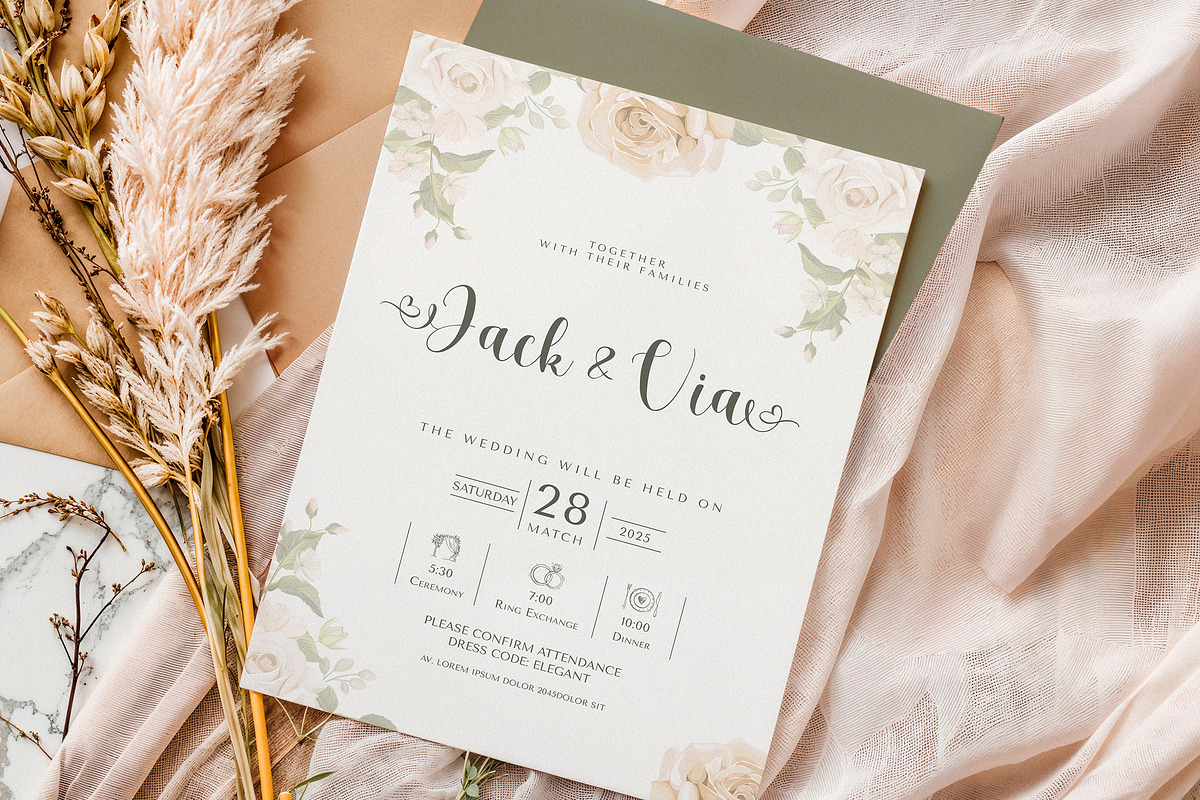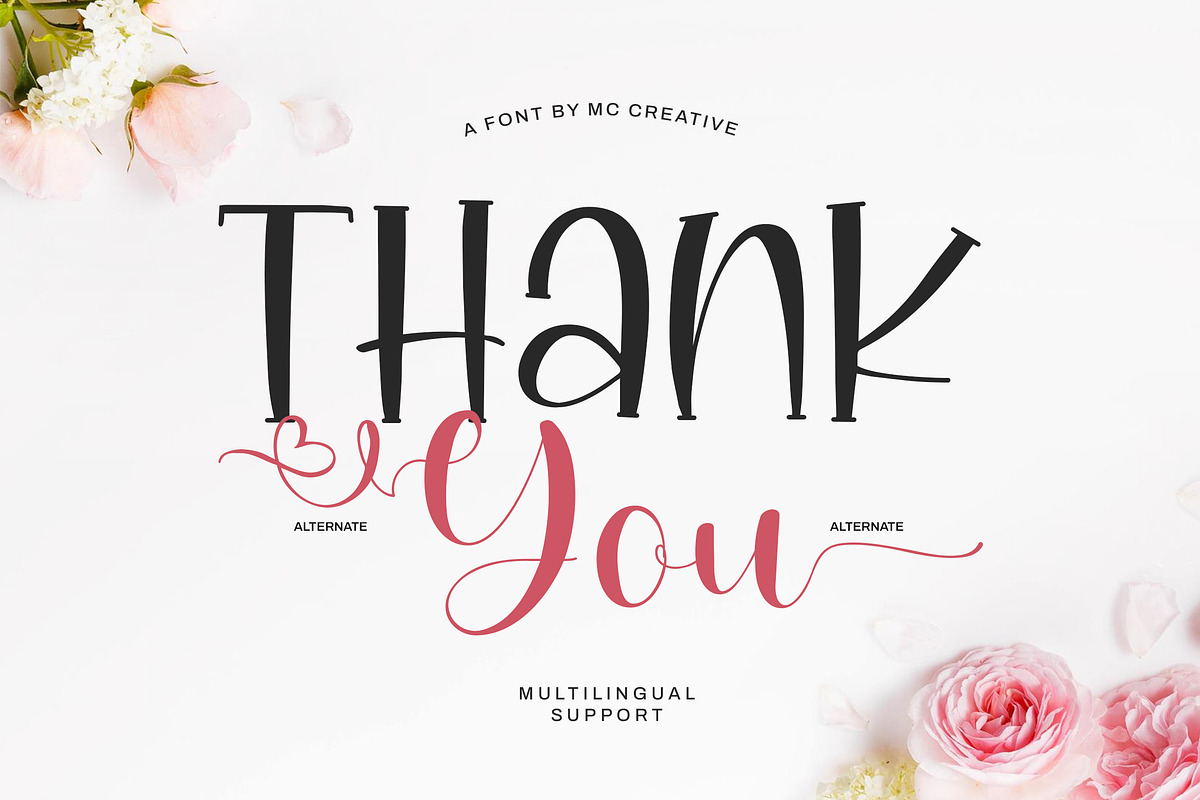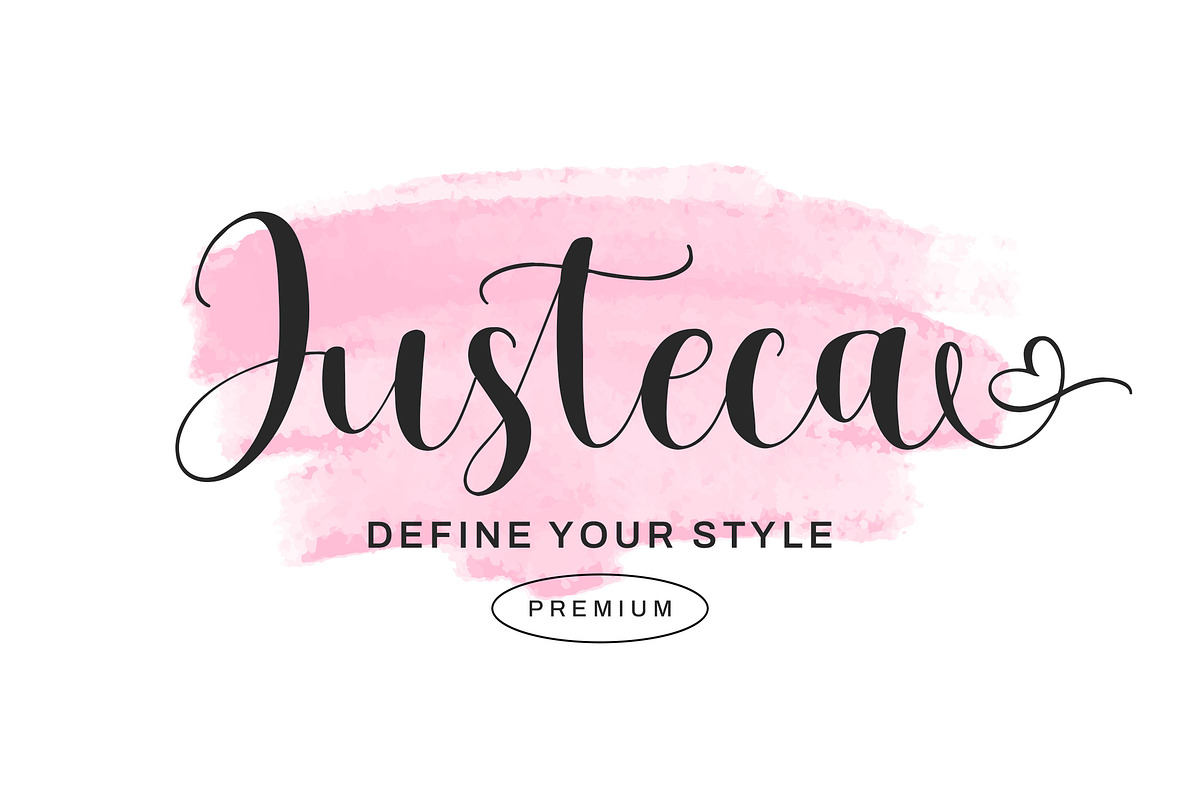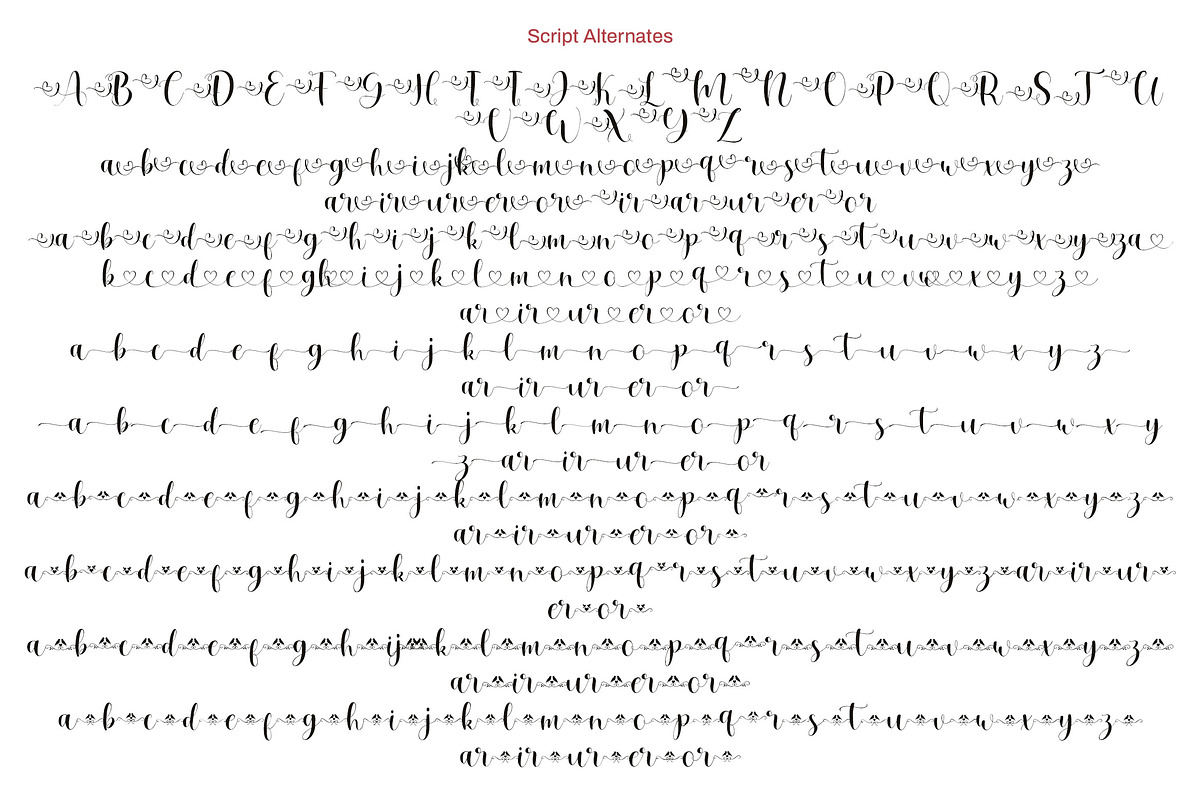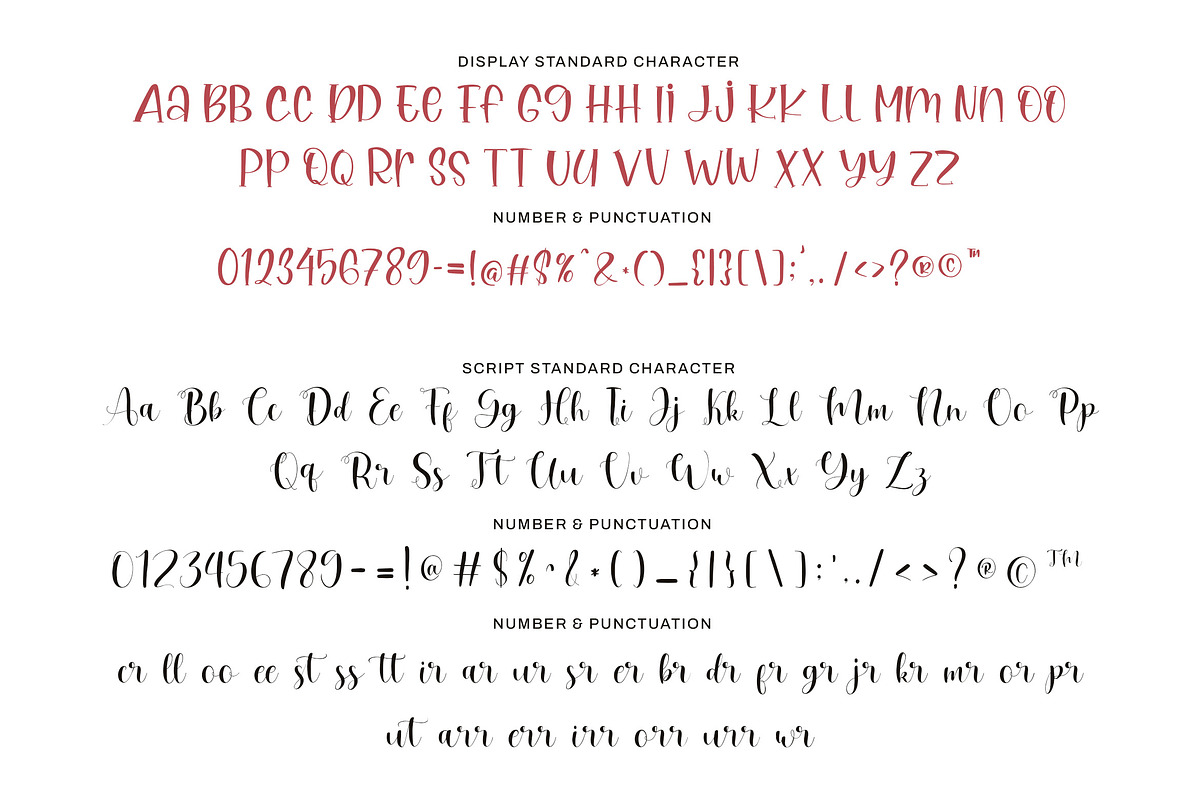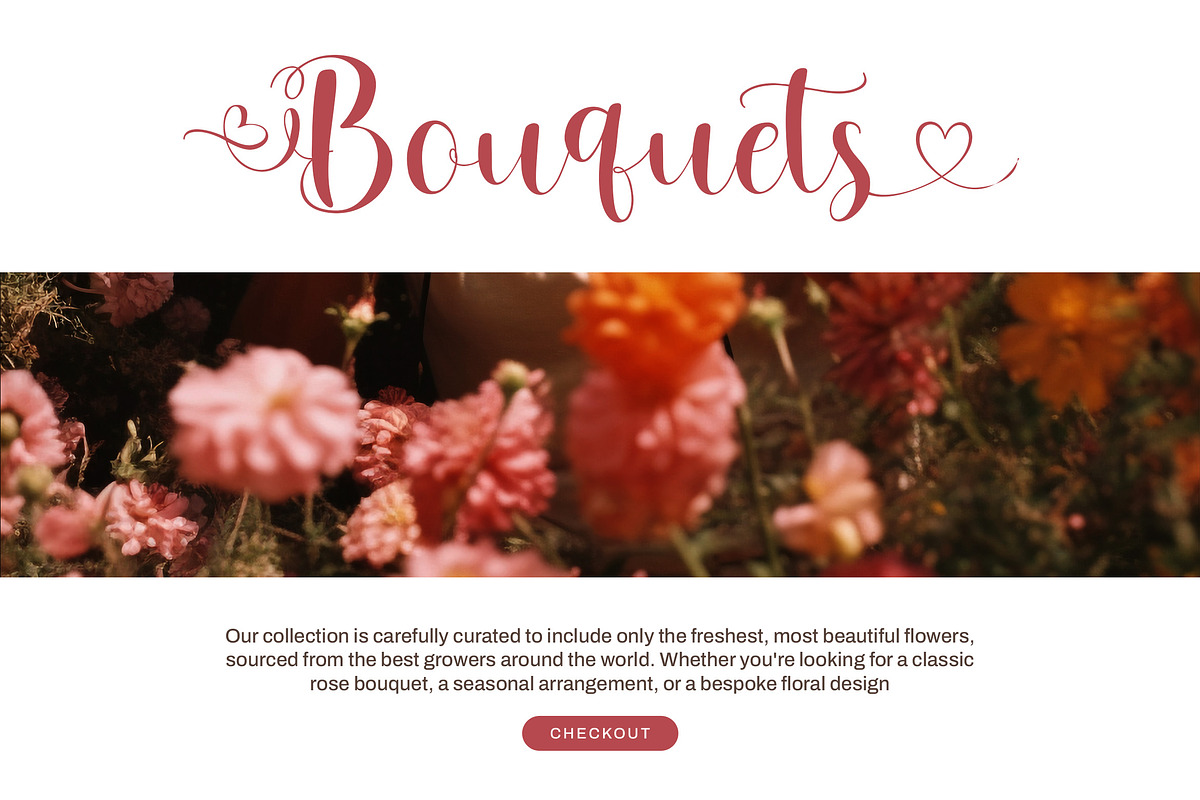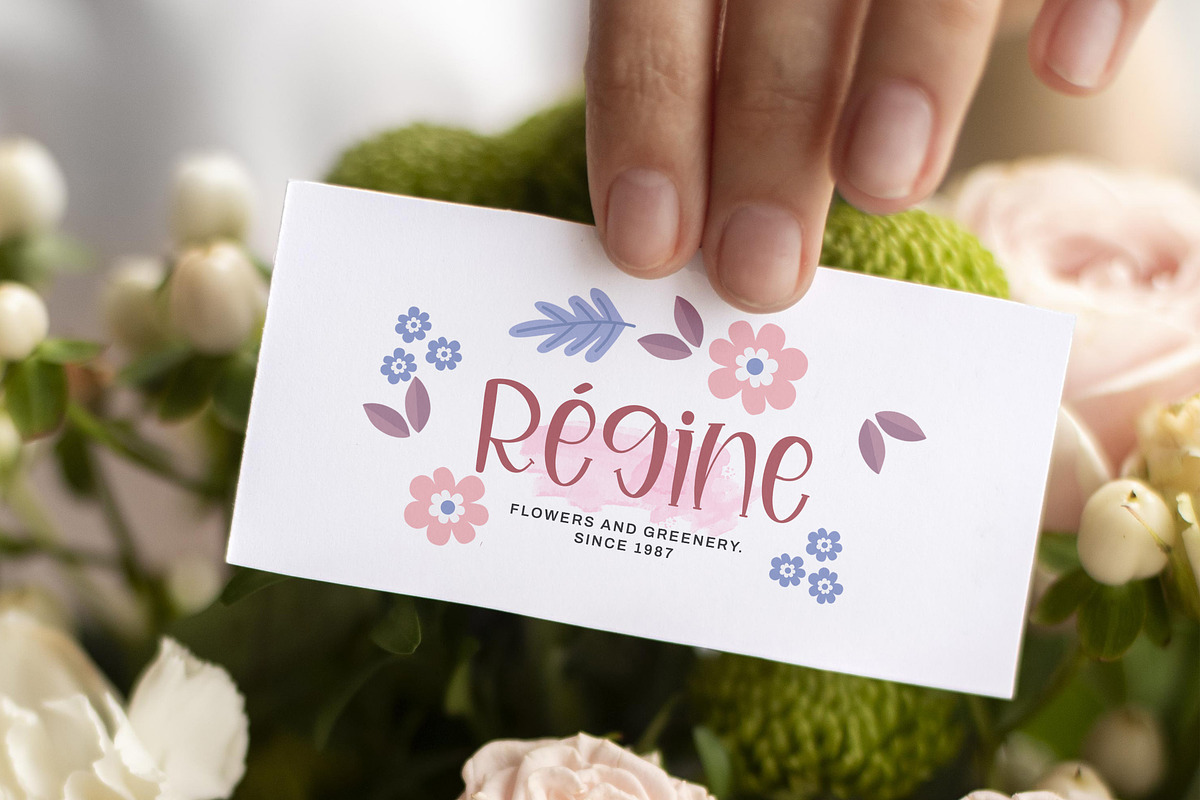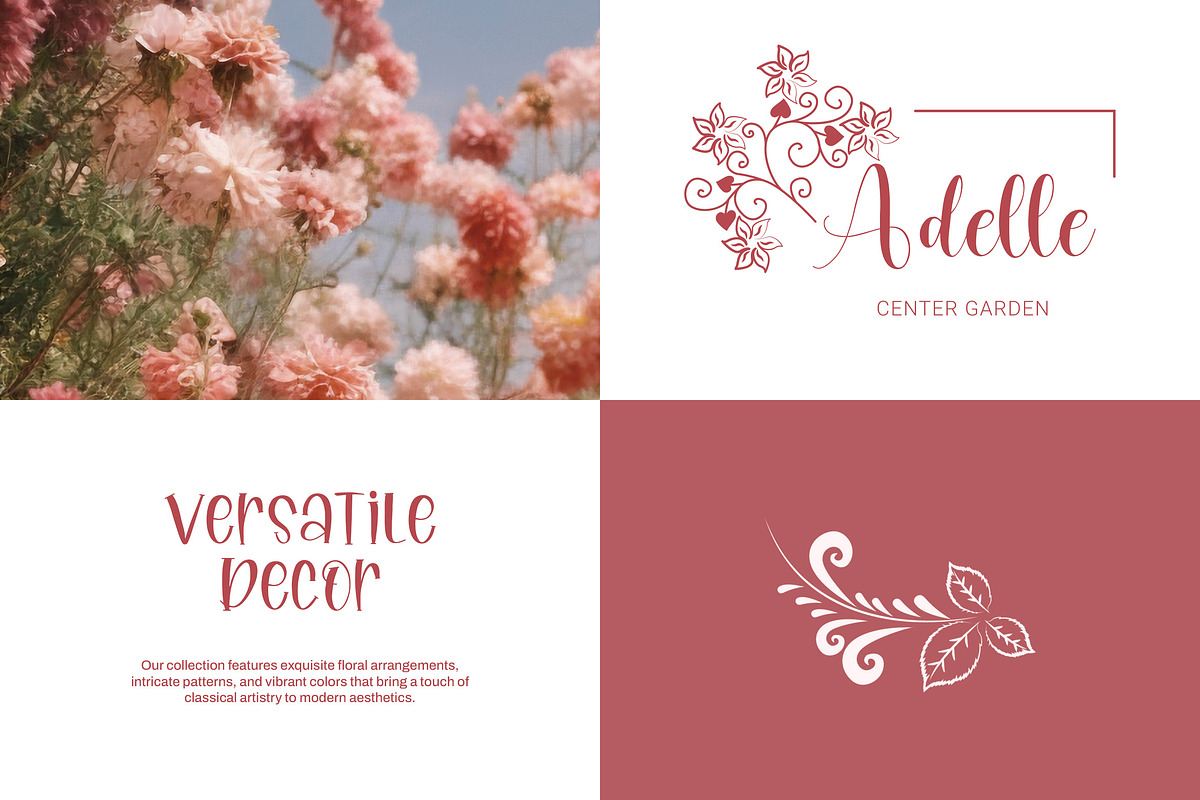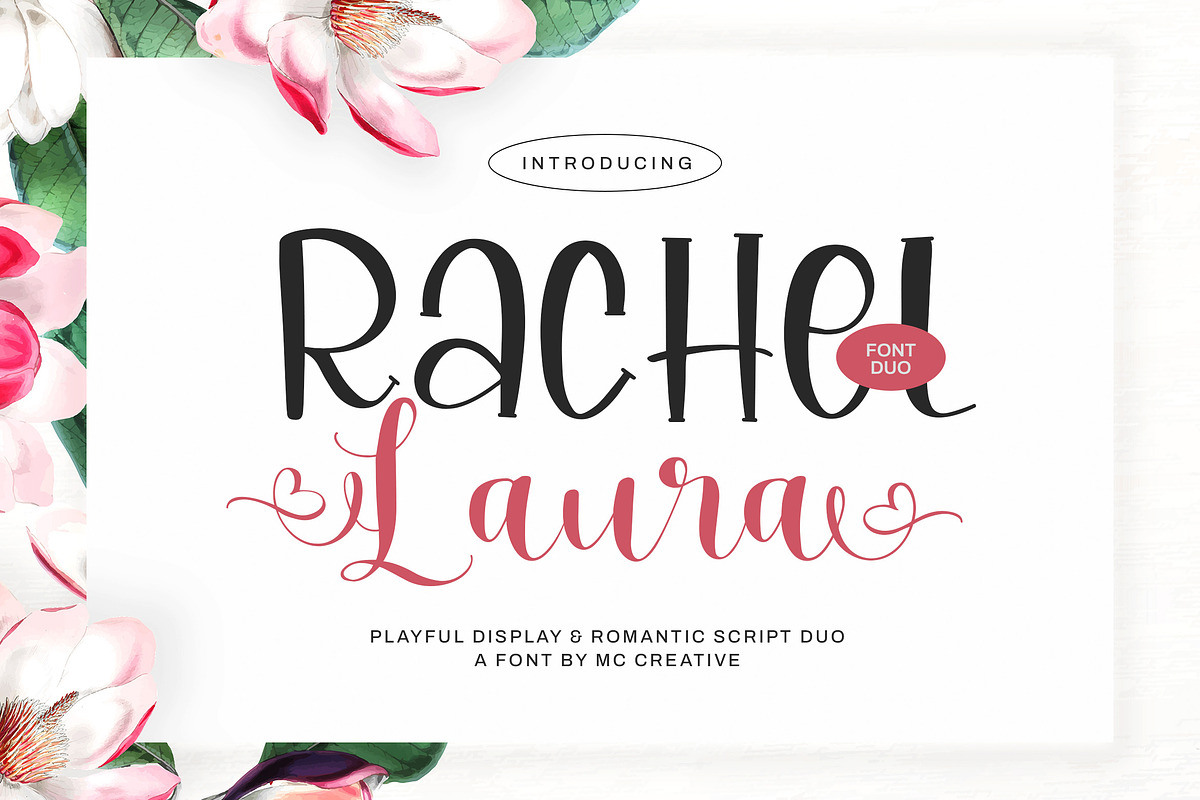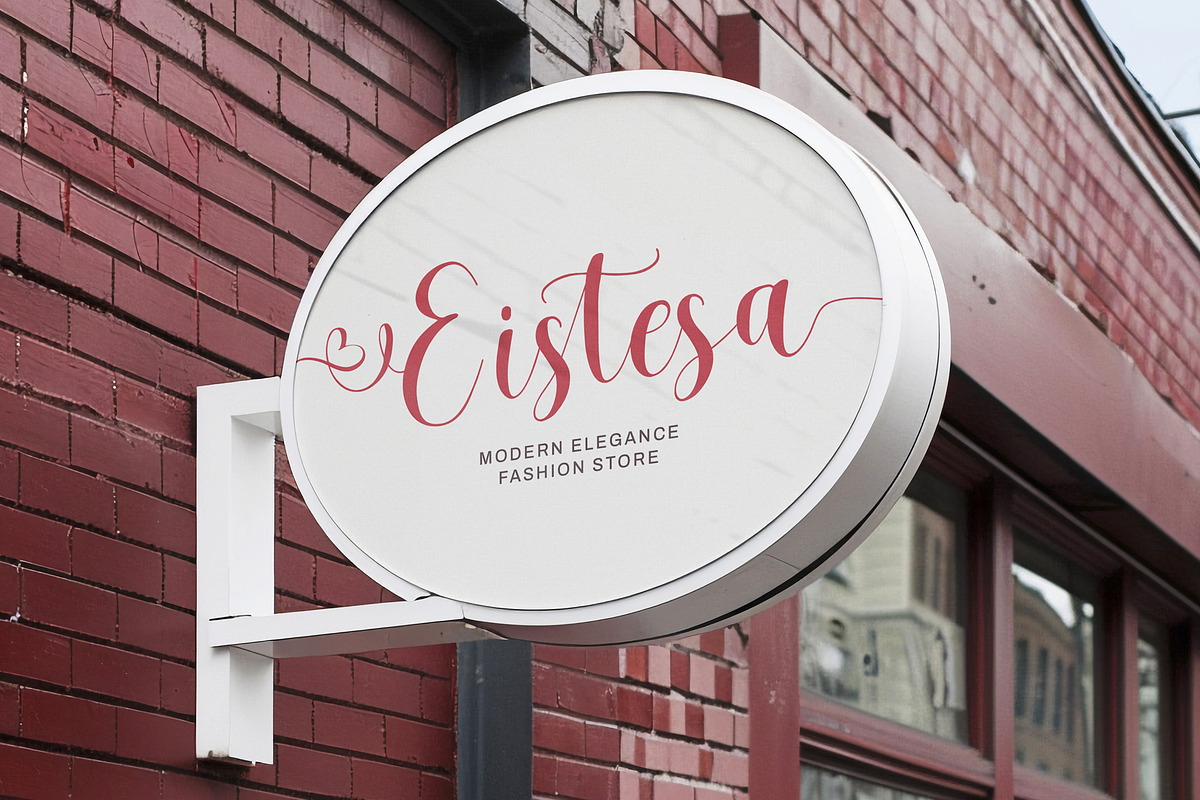
Rachel Laura
Rachel Laura – Playful Display & Romantic Script Font Duo
Introducing Rachel Laura, a charming font duo that beautifully combines a quirky display typeface with a romantic modern script. Crafted with love and creativity, Rachel Laura brings a fresh personality to your design projects – perfect for branding, logos, invitations, packaging, social media graphics, and more.
The Display Font is bold, playful, and full of character. Its unique structure and stylish curves give your headlines a modern and friendly appeal. On the other hand, the Script Font offers a graceful handwritten touch with lots of alternates and ligatures, making every word feel custom and elegant.
This font duo is ideal for wedding designs, feminine branding, magazine layouts, quote designs, or any project that needs a beautiful handwritten and display font combination.
Let Rachel Laura elevate your typography game with its artistic flair and versatility.